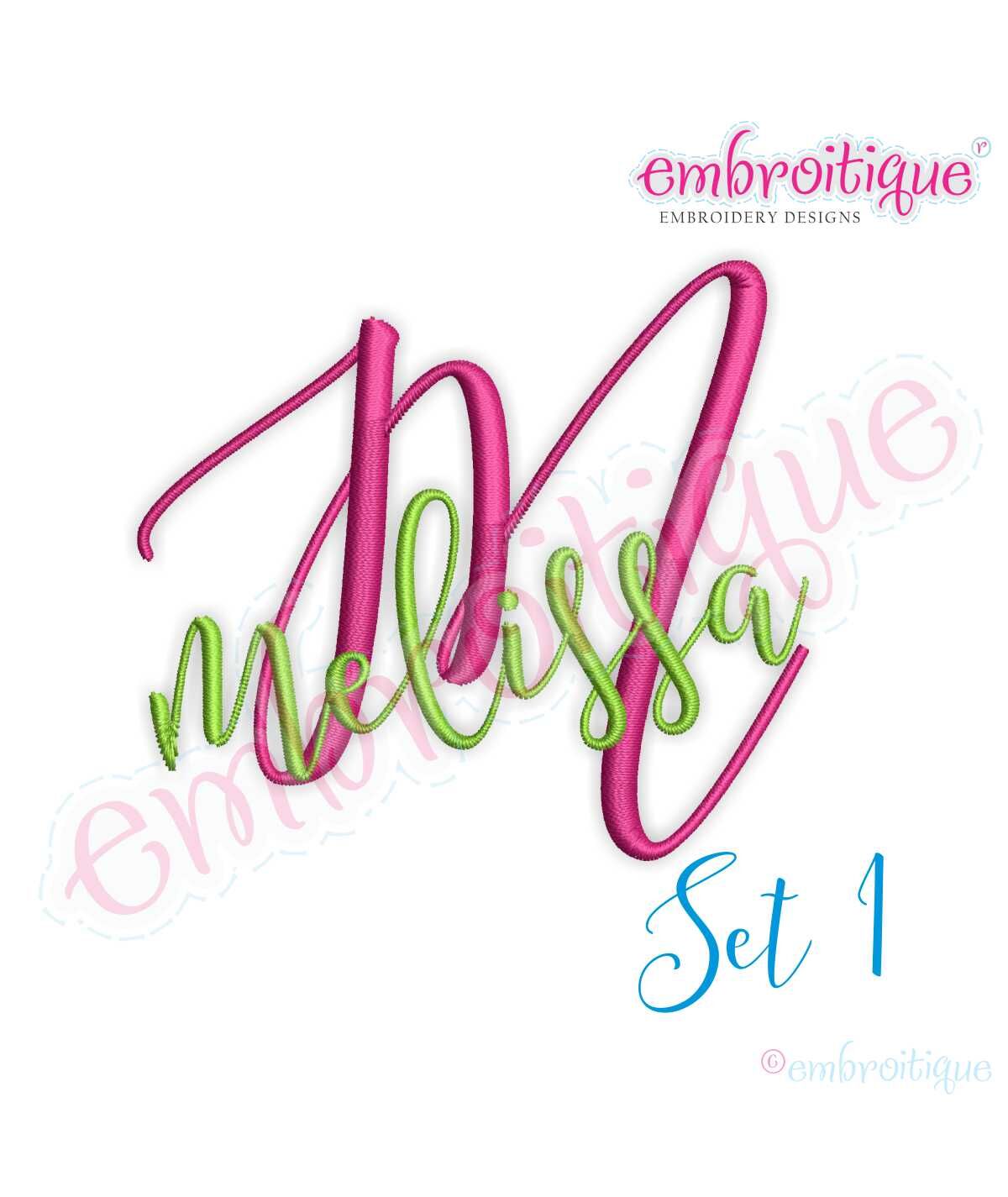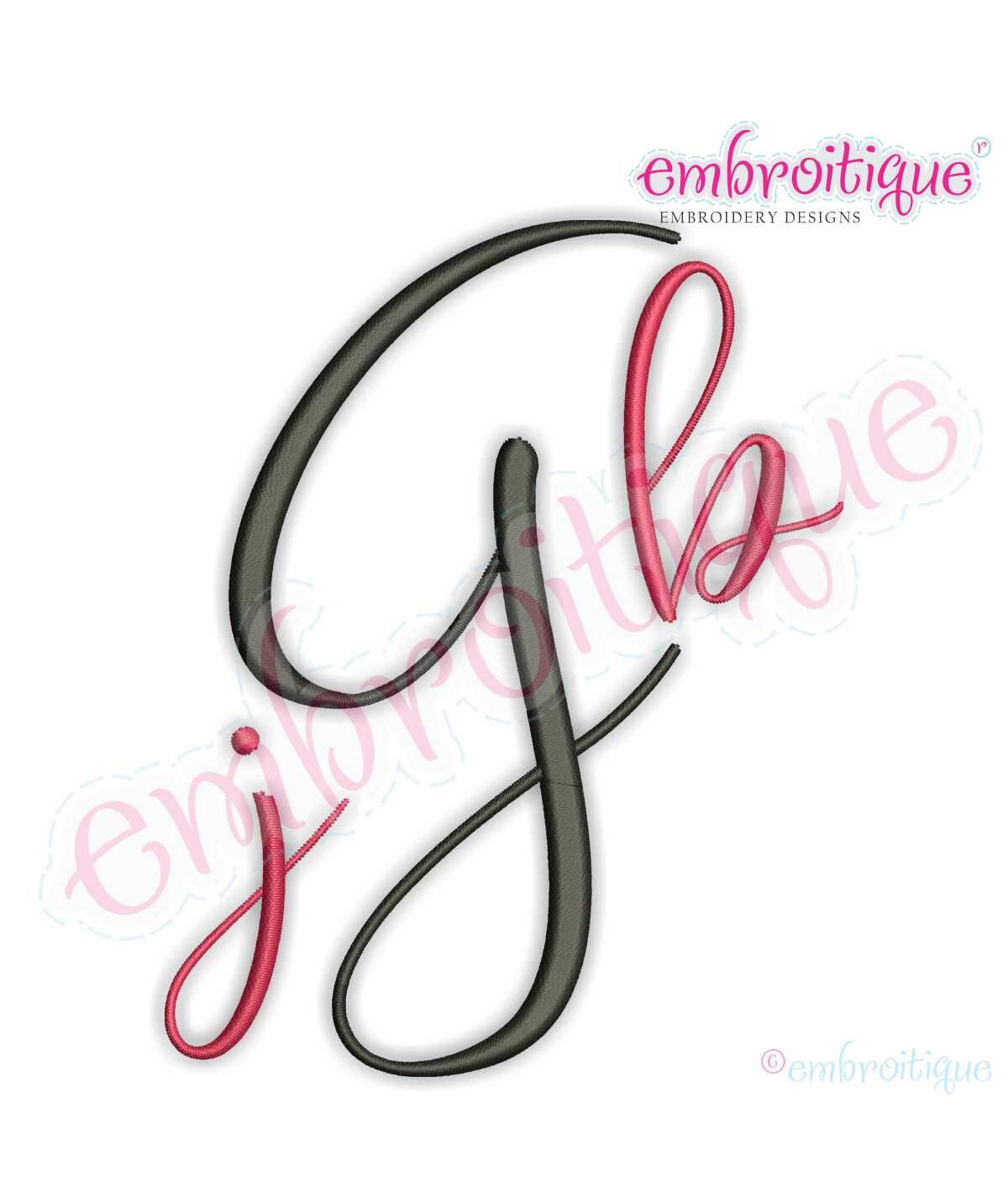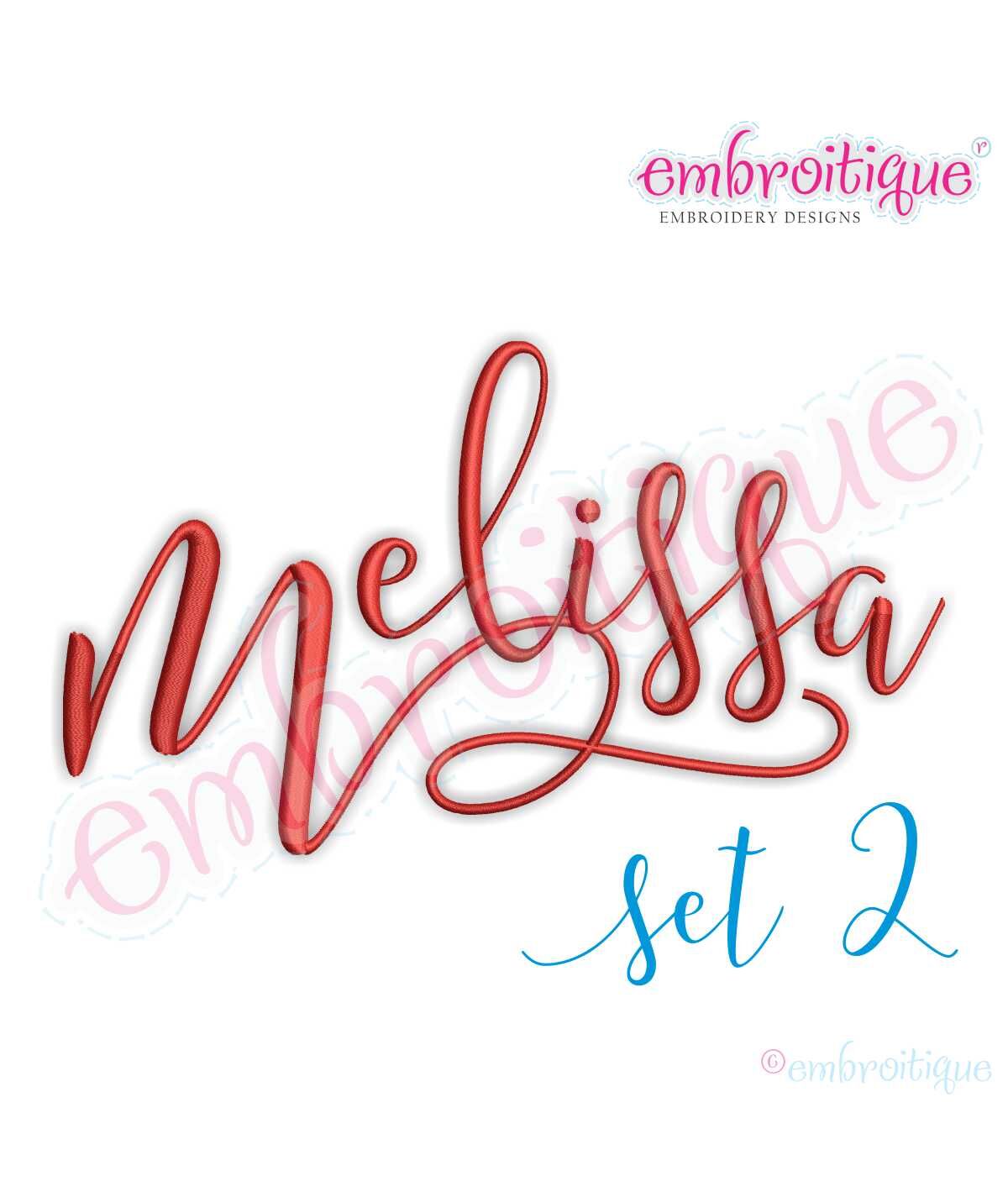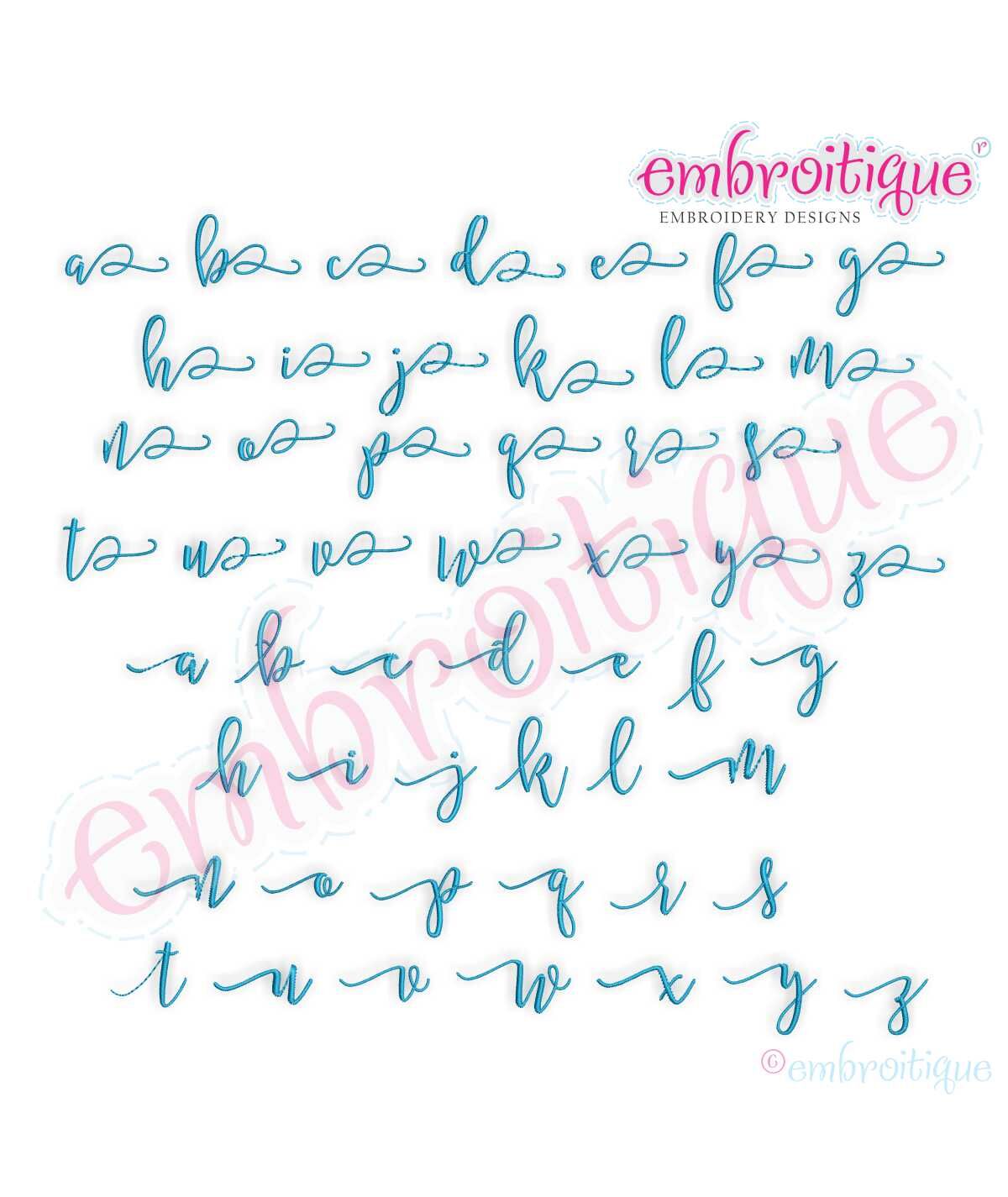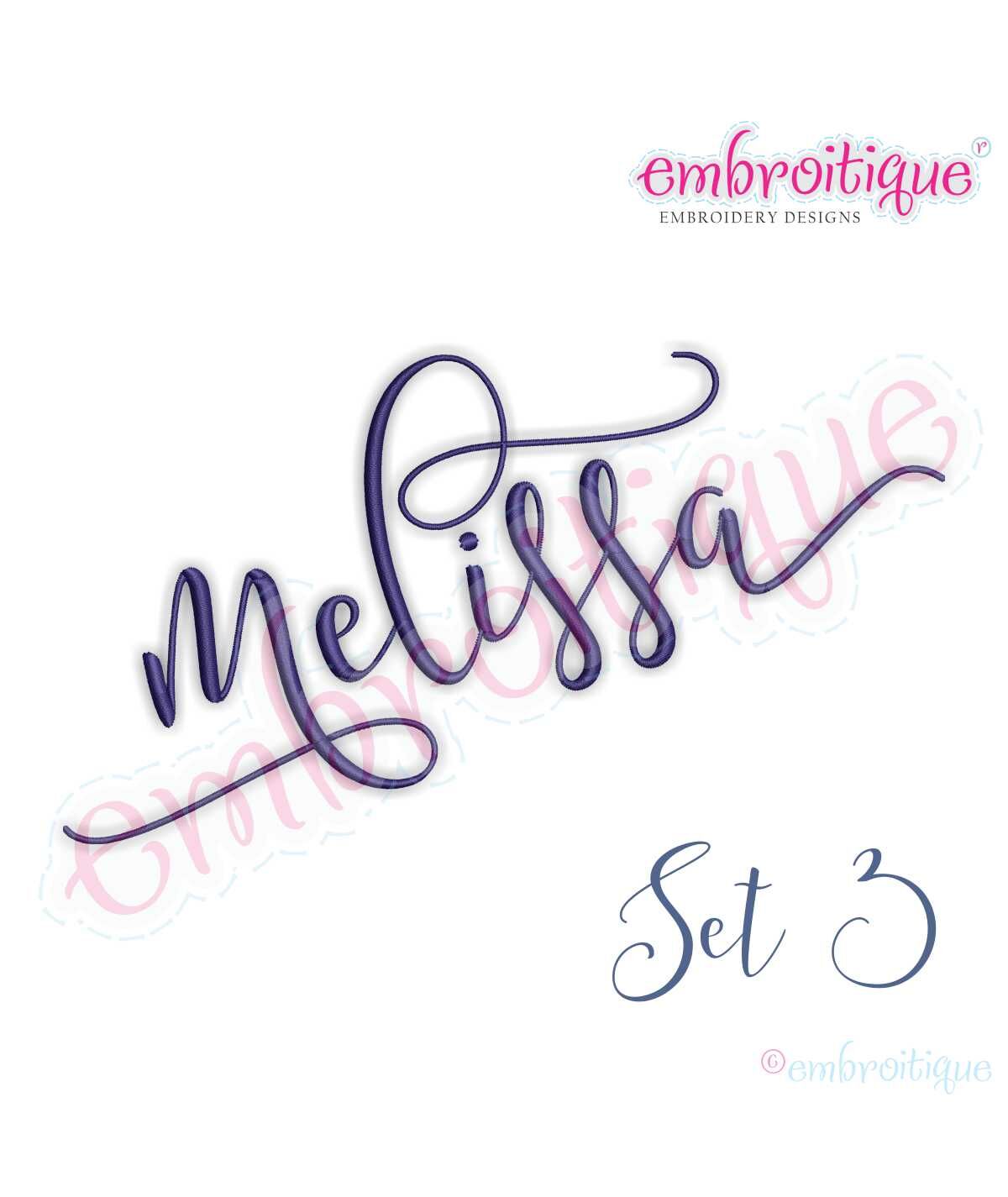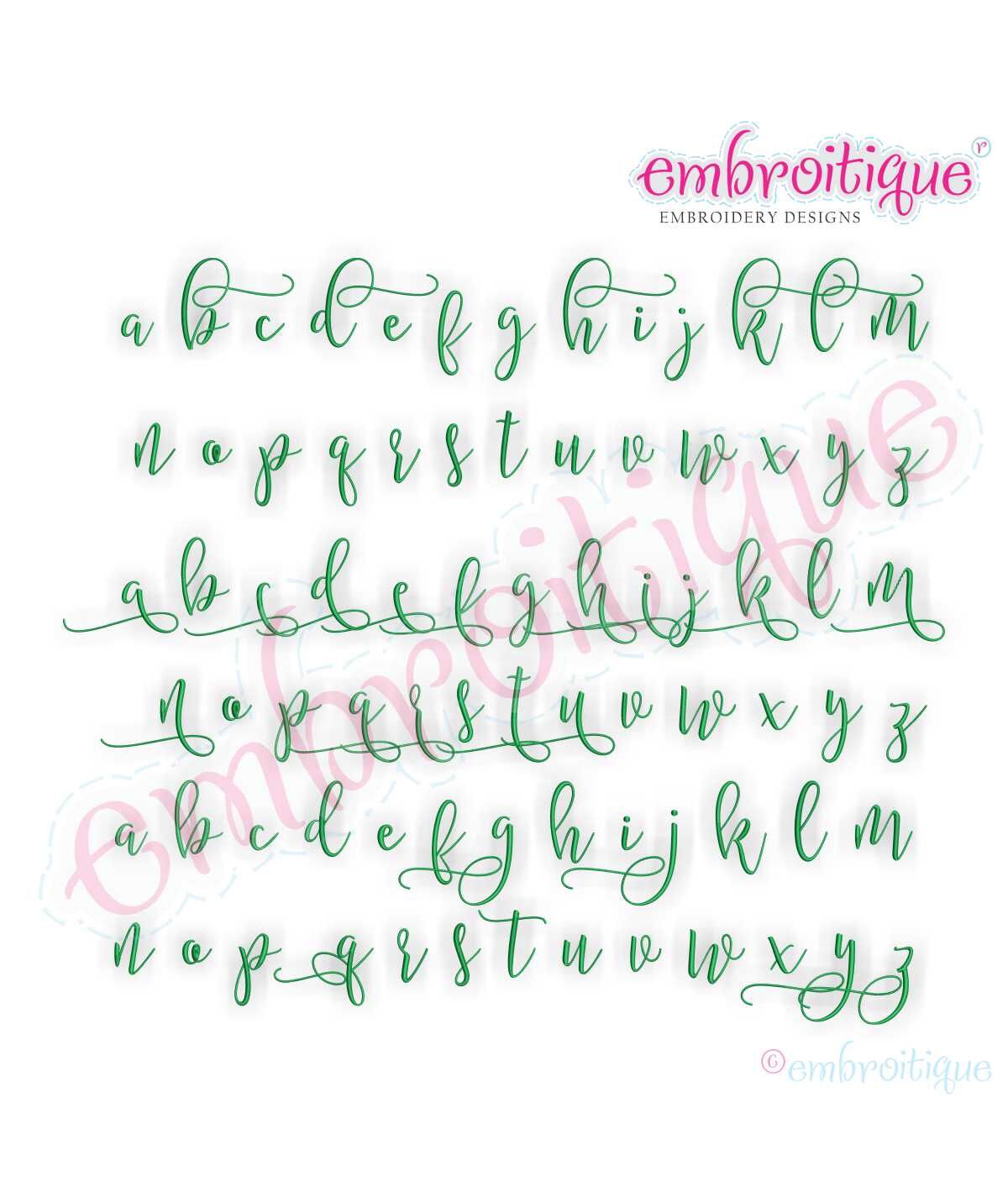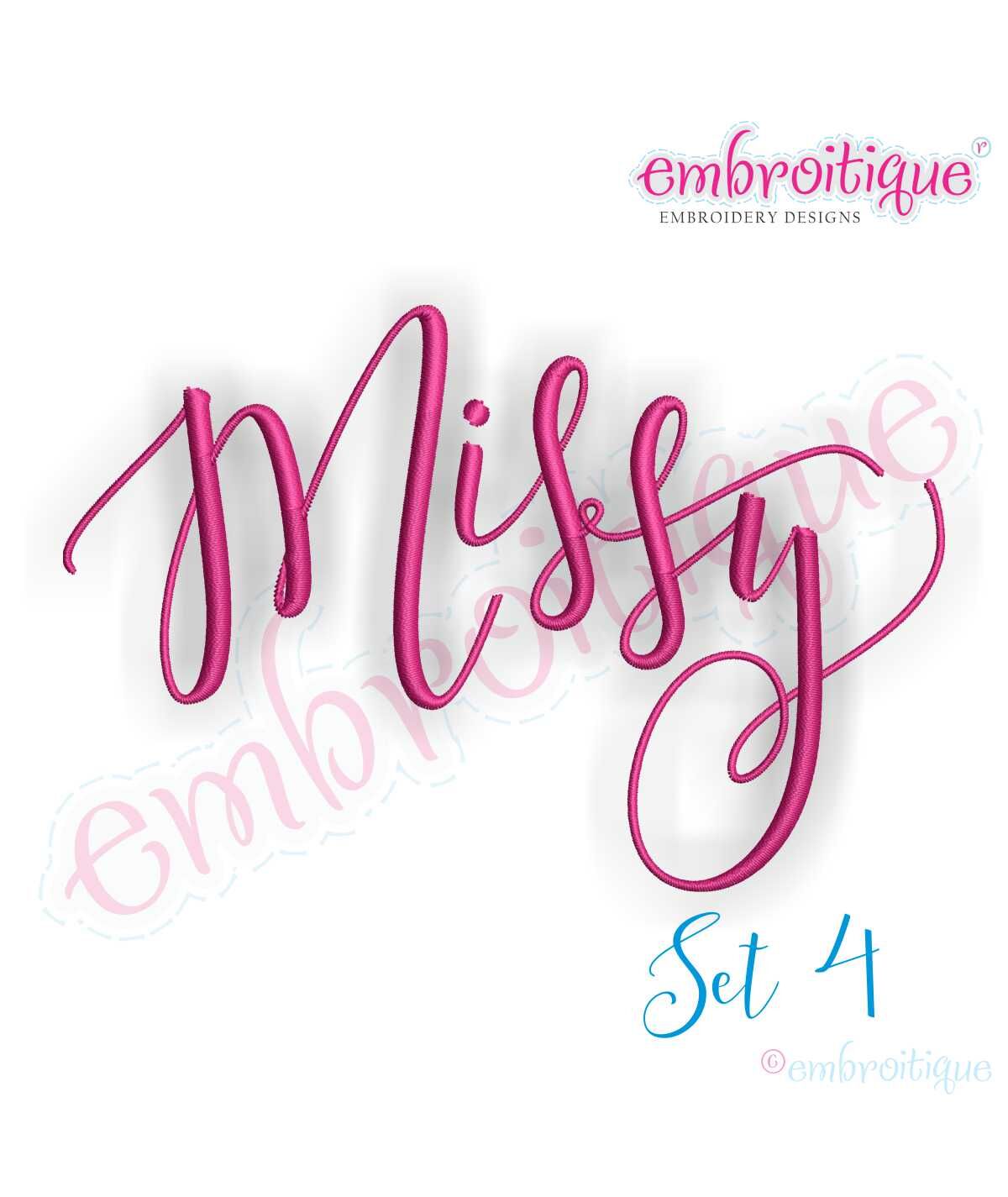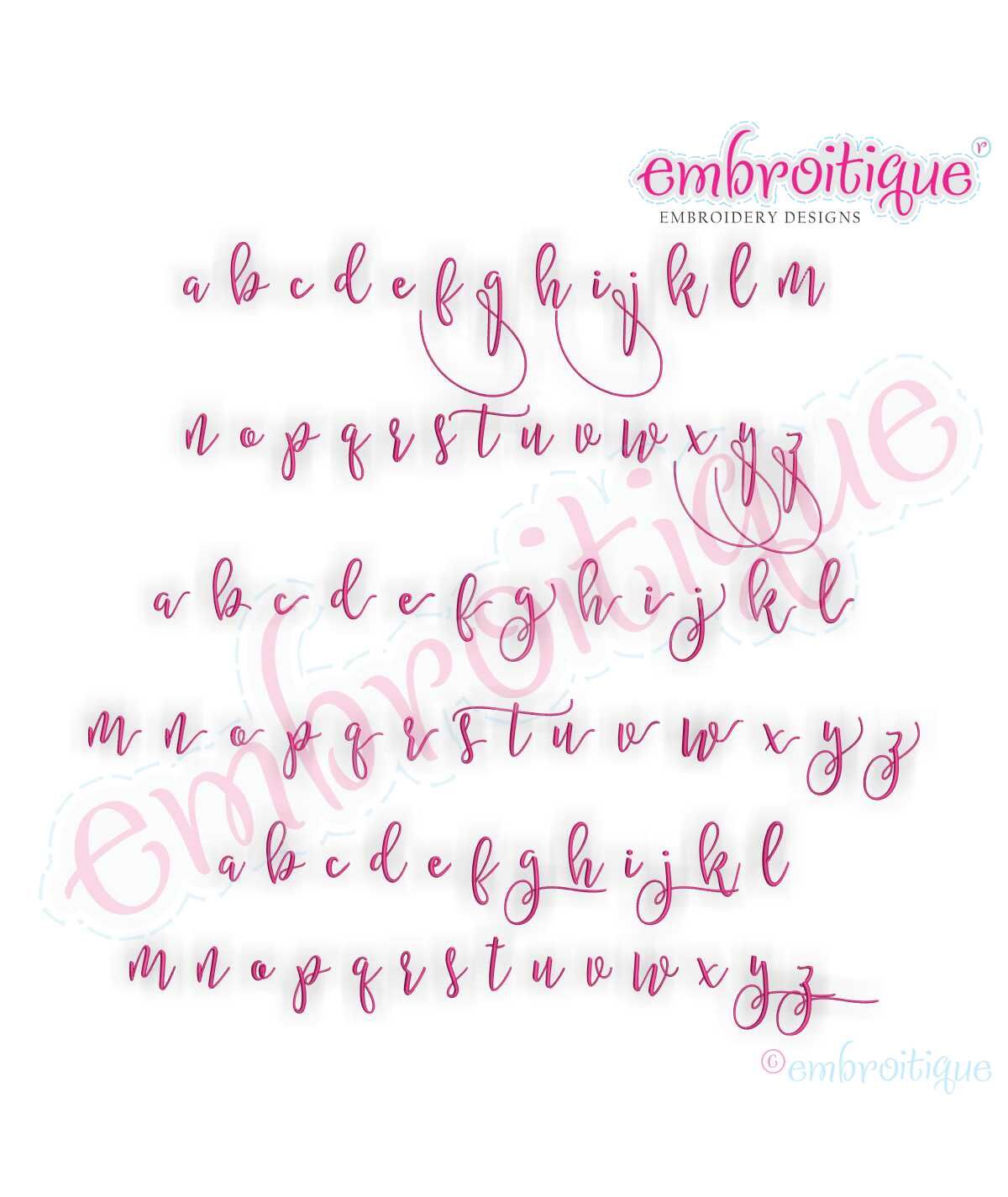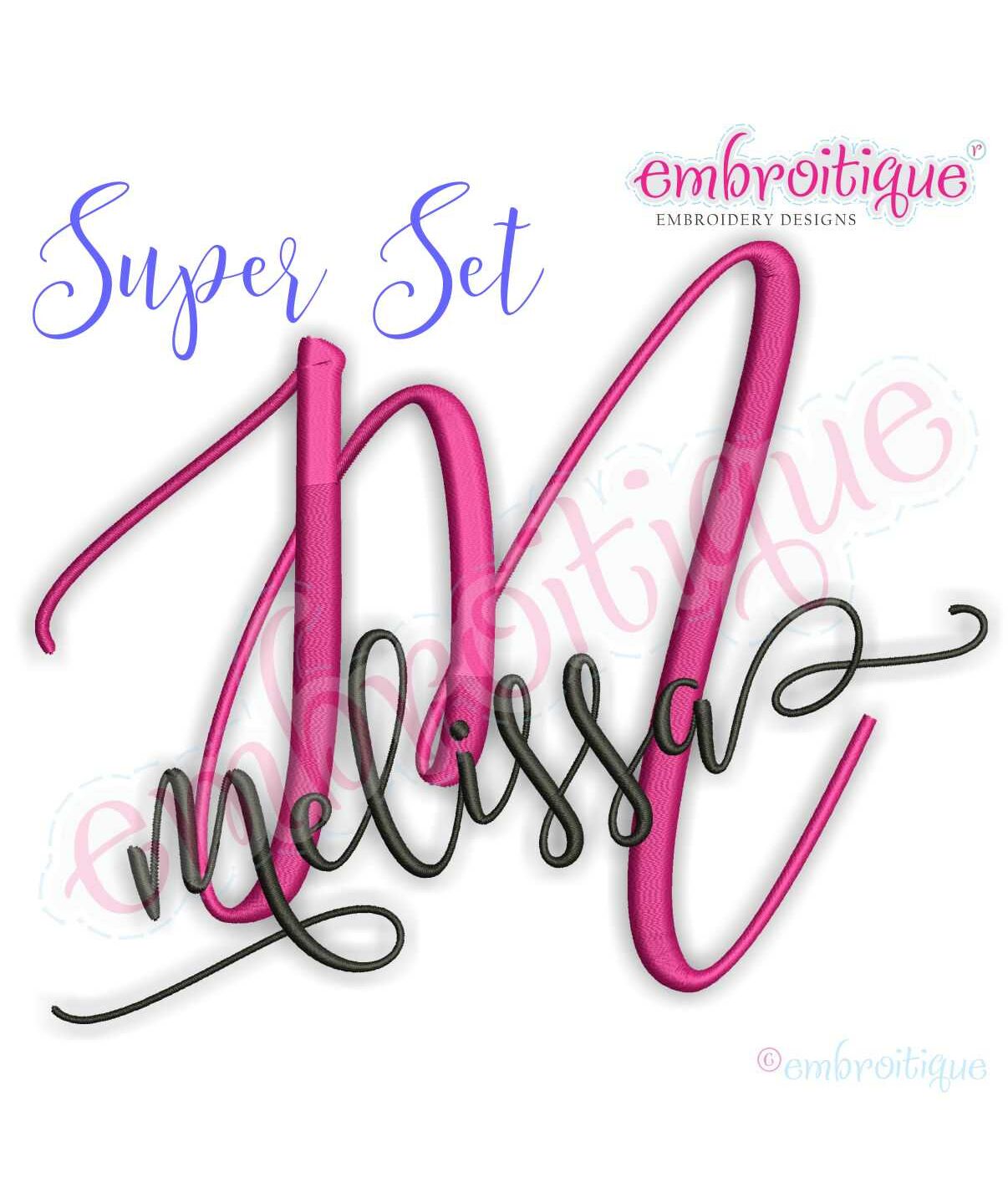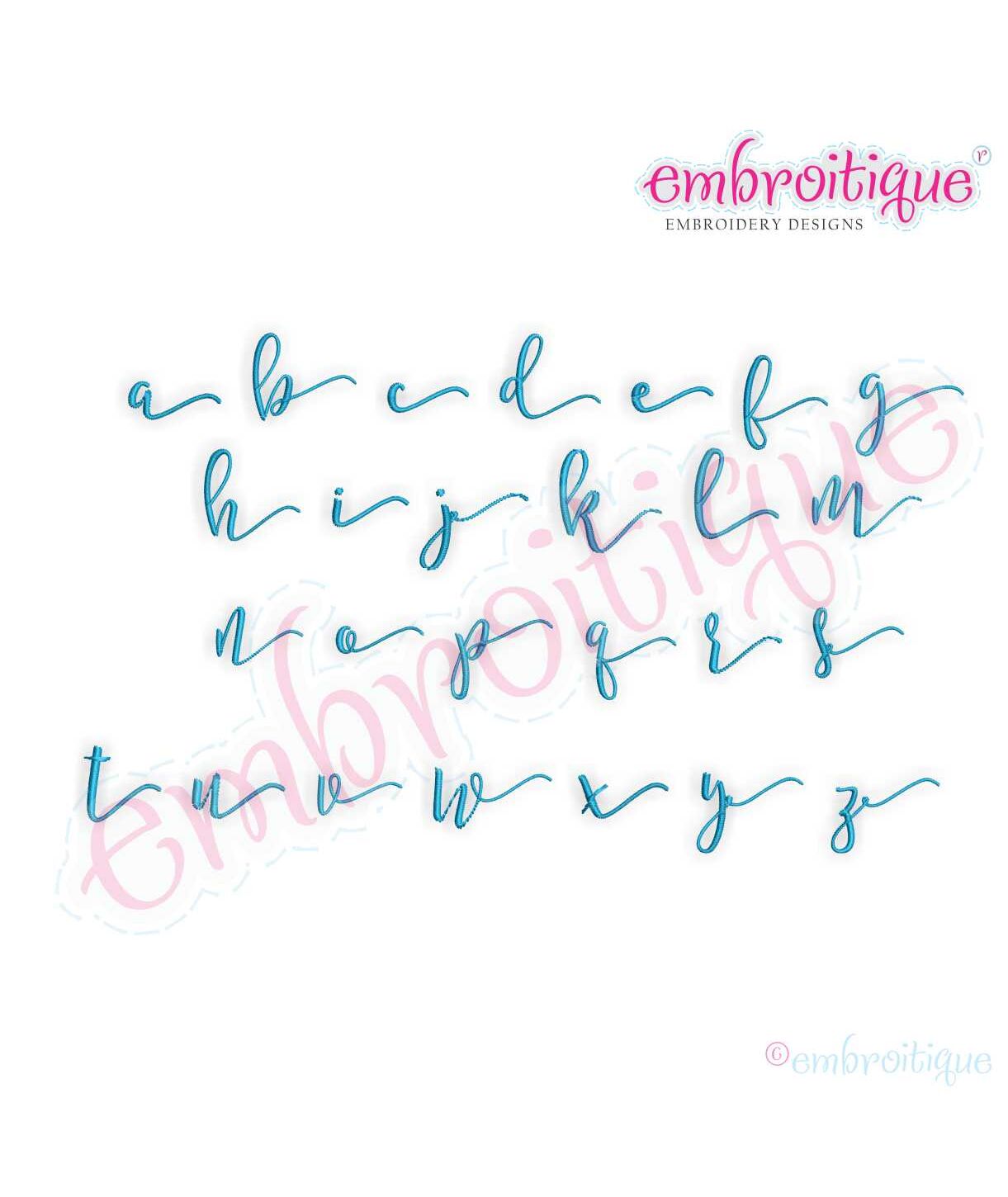
Melissa Monogram Super Set - Hand Lettered Calligraphy Script - Sets 1-4 included!! 2 - 1", 2", 3"
Sets 1-4 of are included in this set. Â You will receive set 1 (the most basic set) along with all of the alternate letters pictured. Â An amazing collection of beautiful lettering!